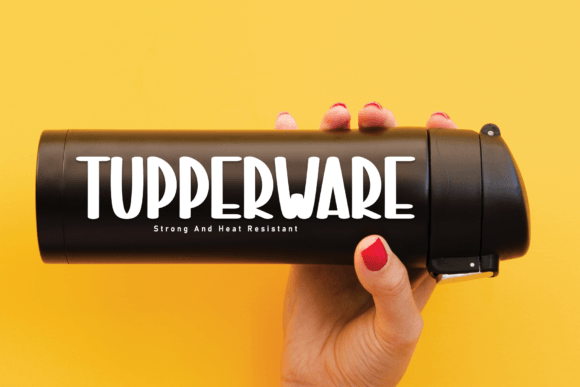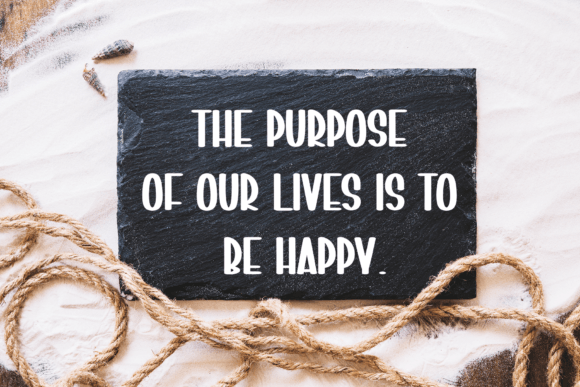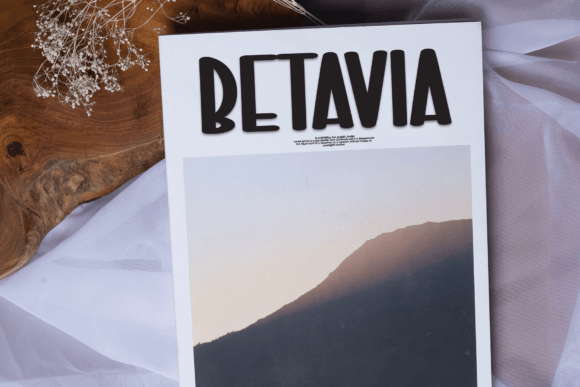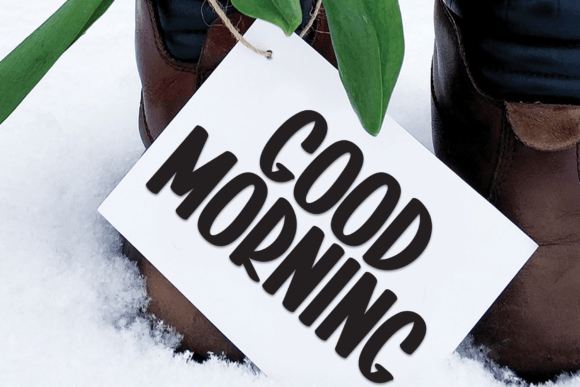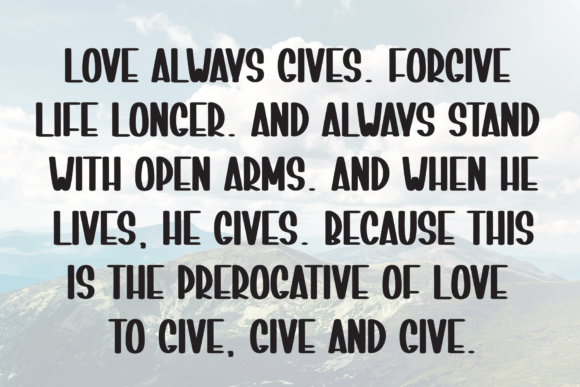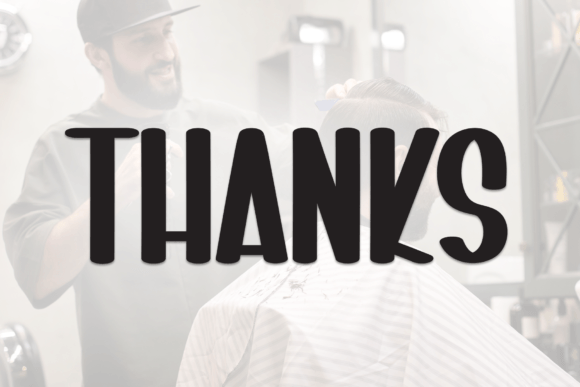
When Design Meets Personality
Have you ever stumbled upon a font that perfectly captures the essence of your creative vision? For many designers, that moment is a game-changer. It’s the spark that ignites a new project, the missing piece that brings a design to life. For me, that moment came when I discovered the Barber Shop Font.
Barber Shop is a sweet and friendly handwritten font that exudes a natural and unique charm. Its versatility makes it an ideal choice for a wide range of designs, from invitations and greeting cards to logos and branding materials. Whether you’re looking to add a personal touch or create a lasting impression, Barber Shop Font is the perfect tool to help you achieve your goals.
What sets Barber Shop Font apart is its ability to transcend design boundaries. With its friendly and approachable style, it’s the perfect addition to any project that requires a touch of personality. As a designer, having access to versatile and high-quality fonts like Barber Shop Font can be a valuable asset, allowing you to push the creative limits and deliver exceptional results.
Key Features of Barber Shop Font
- Font Family: Barber Shop Font is a sans-serif font family designed specifically for signage and wayfinding systems. It comes in several weights, including Light, Regular, Bold, and Black.
- Font Size and Resolution: Barber Shop Font is designed to be legible at large sizes, with a recommended size range of 12-72 points. It is optimized for use at high resolutions, up to 300 DPI.
- Unique Characteristics: Barber Shop Font features a distinctive, modern design with clean lines and a friendly feel. It is designed to be highly legible, even at large sizes, making it ideal for use in signage and wayfinding systems.
- Language Support: Barber Shop Font supports a wide range of languages, including Latin, Greek, Cyrillic, and many others. It is also designed to be highly customizable, making it easy to adapt to specific language requirements.
Barber Shop Font Review
As a designer, I was excited to dive into the Barber Shop Font, a sans-serif font designed specifically for the barber industry. Here’s my honest review:
- Unique character: The font’s unique design, inspired by vintage barber shop signs, gives it a distinctive personality that stands out.
- Legibility: The font is highly legible, making it perfect for body text and signage.
- Playful touch: The font’s playful touch adds a touch of whimsy to any design project.
- Limited versatility: The font’s unique design might not be suitable for all design projects, limiting its versatility.
- Lack of variation: The font lacks variation in weights and styles, which might make it less appealing to designers looking for a more comprehensive font package.
Overall, the Barber Shop Font is a unique and playful addition to any design project. While it may not be the most versatile font, its distinctive personality makes it a great choice for barber shops, tattoo parlors, and other businesses looking to add a touch of nostalgia to their branding. With a bit of creativity, designers can make the most of this font’s limitations and create stunning designs that showcase its unique character.
For a more authentic look, use the font in conjunction with other design elements such as vintage-style graphics and distressed textures.
Use the font in combination with other design elements such as bold lines and vintage-style graphics to create a unique and eye-catching design.
Use the font to create a unique and attention-grabbing title or heading in your presentation or document.